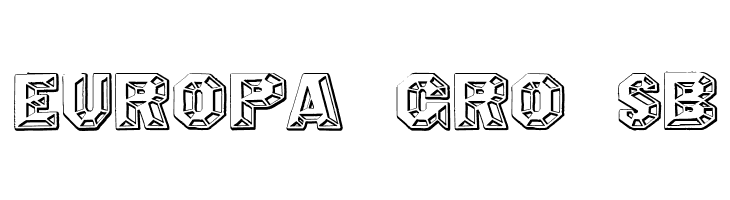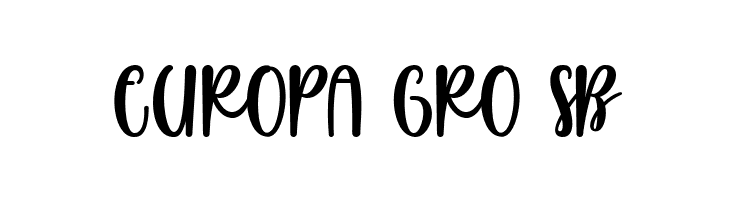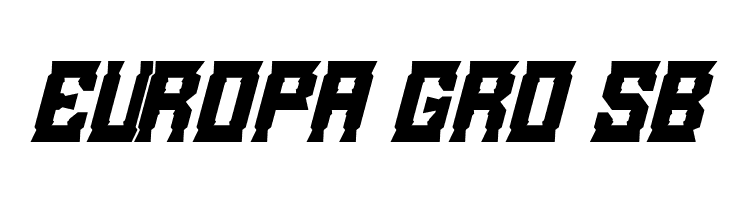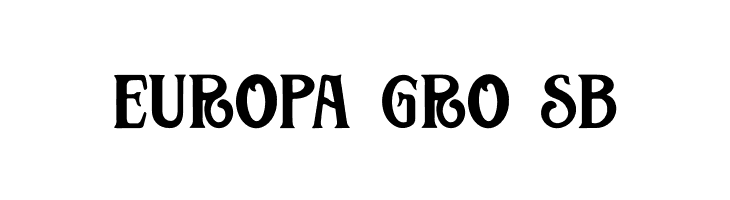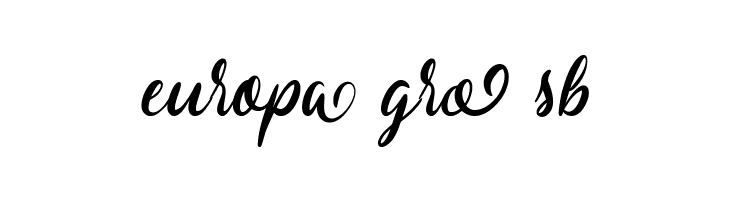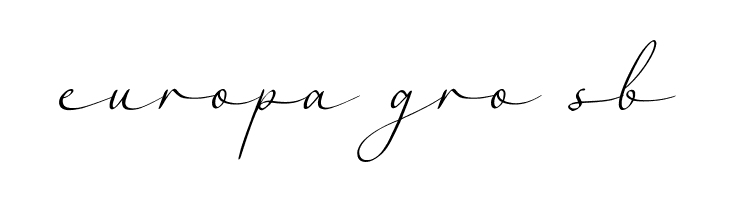
A bold, geometric font with a three-dimensional, prismatic design.
A bold, playful script font with a handwritten style.
A decorative and ornate font with intricate details and flourishes.
A bold, angular italic font with a futuristic and geometric style.
A bold, decorative font with intricate swirls and flourishes.
A graceful, cursive script font with flowing, connected letters and elegant flourishes.
An elegant, decorative script font with festive flourishes.
An elegant script font with flowing cursive characters and intricate flourishes.
A hollow, squarish font with geometric and symmetrical shapes enclosed in rounded rectangles.